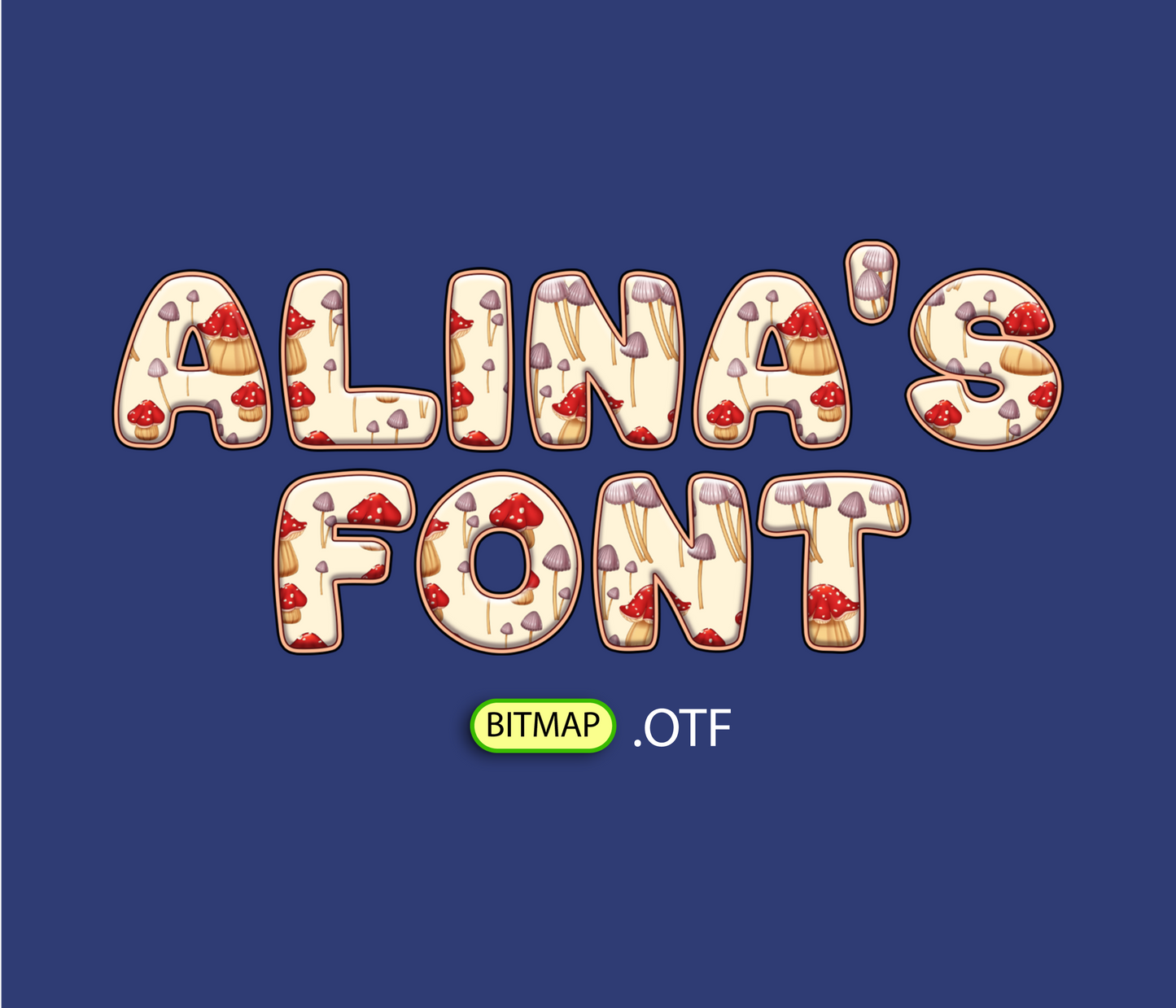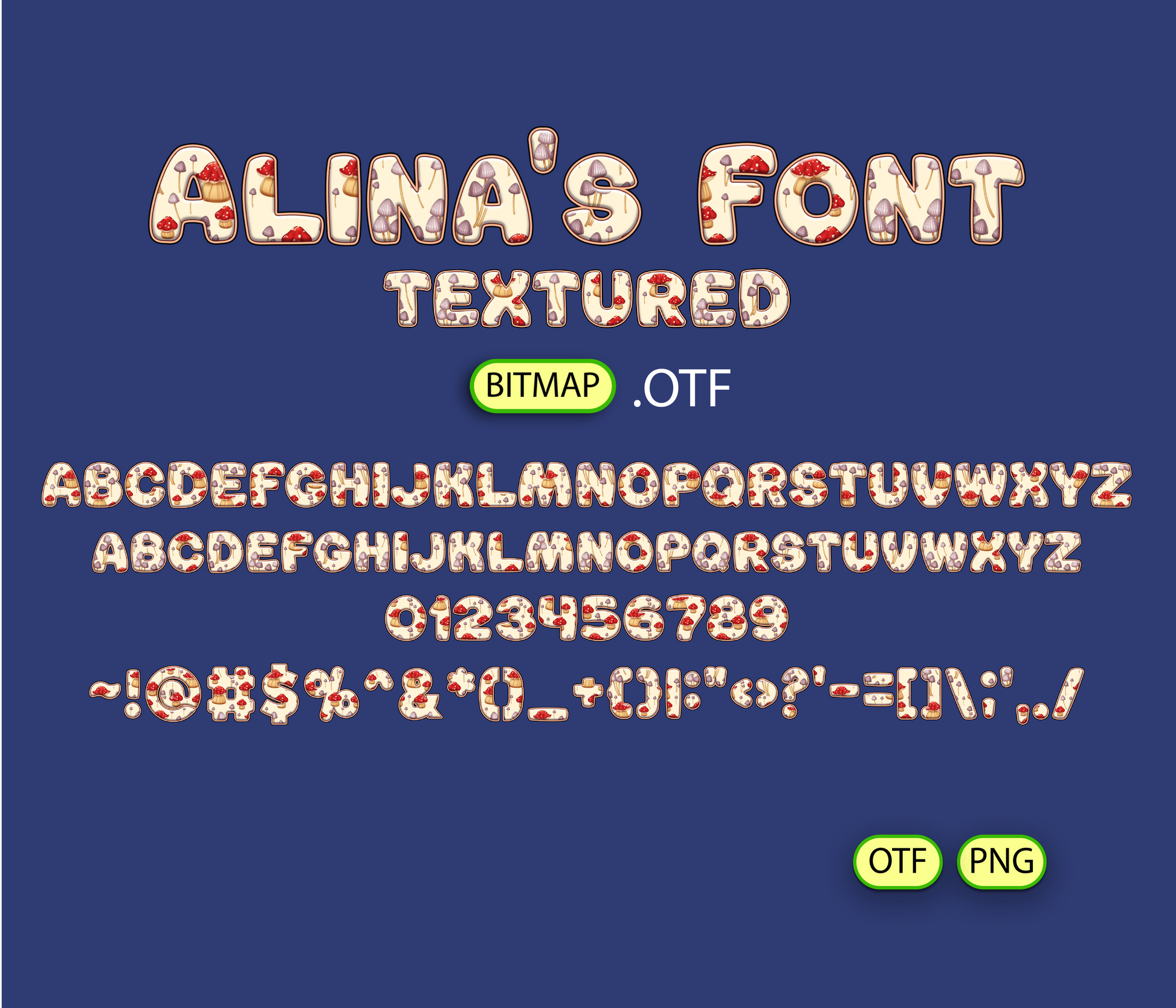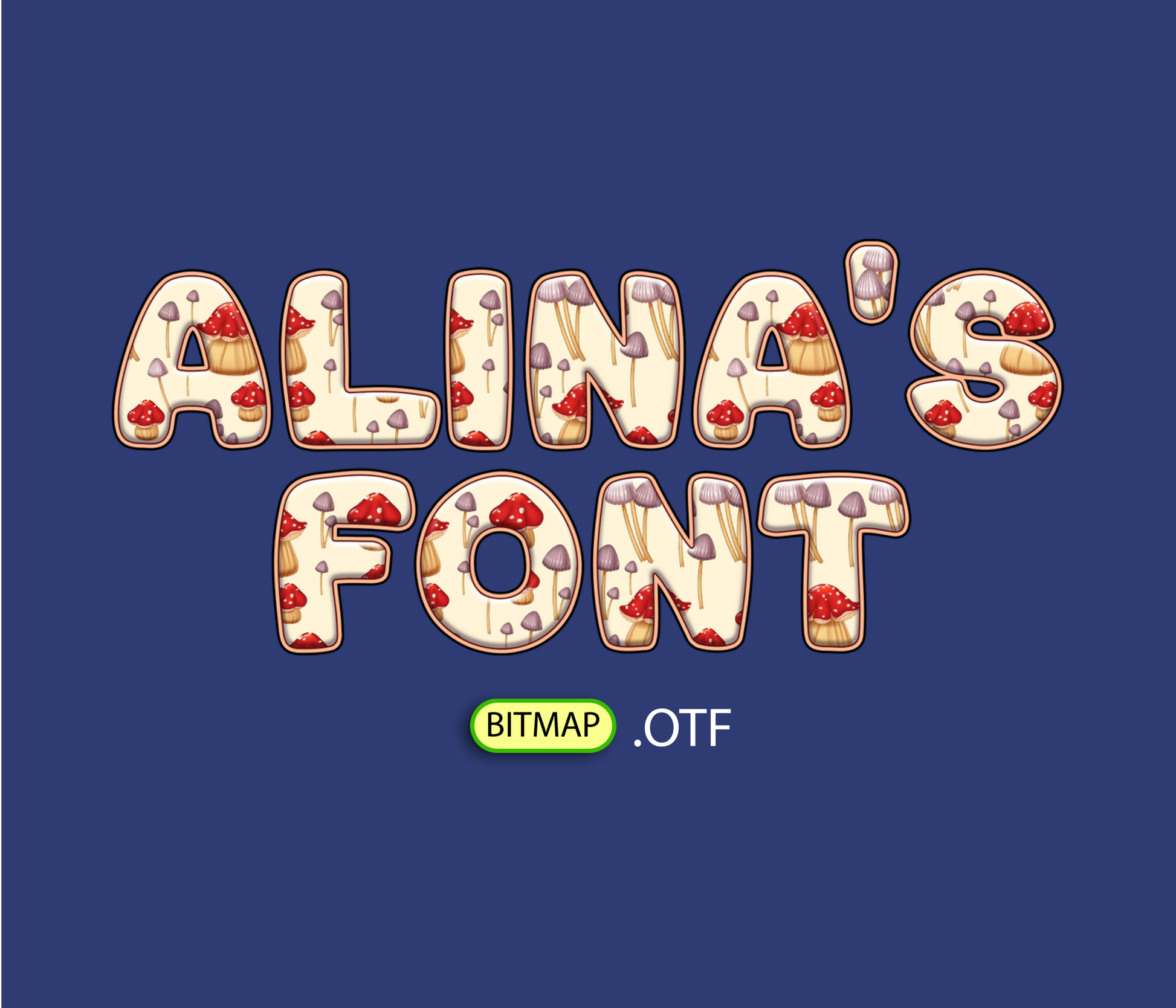
Fungi Woodland Typography Collection Organic
Immerse yourself in the enchanted realm of forest floor treasures with our Fungi Woodland Typography Collection, embodying the essence of underground networks and shadowy groves. Tailored for gourmet establishments, botanical educators, mythical storytellers, and artistic creators, this lettering style delivers the mystical, earth-bound atmosphere of spore-laden environments to your creative work. Design bewitching displays, natural merchandise, or web materials with the deep, mossy magic of undergrowth colonies and ancient woodland paths.
Artistic Vision and Applications
Our Fungi Woodland Typography showcases cap-shaped, spore-themed contours and organic letterforms that mirror the hidden yet vital essence of decomposer ecosystems.